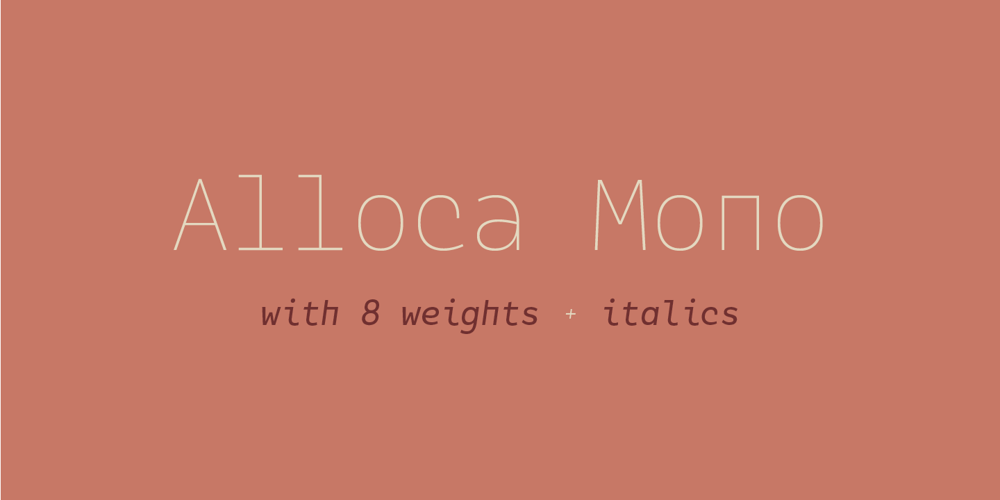
Alloca Mono Font Family was designed by Daniel Gamage and published by Daniel Gamage. Alloca Mono contains 16 styles and family package options. To break from the rigidity of a typical monospaced font, Alloca includes weights that go above and beyond. From the wire-thin to the ultra-bold, you’ll be able to do a lot with one monospaced family. With OpenType features like slashed zeros, old style numerals, and case-sensitive forms, Alloca is versatile. It’s great for displaying code, showcasing data, or even flowing your body copy. It has broad language support, too, with localized forms for Vietnamese, Polish, Catalan, and Dutch, to name a few.